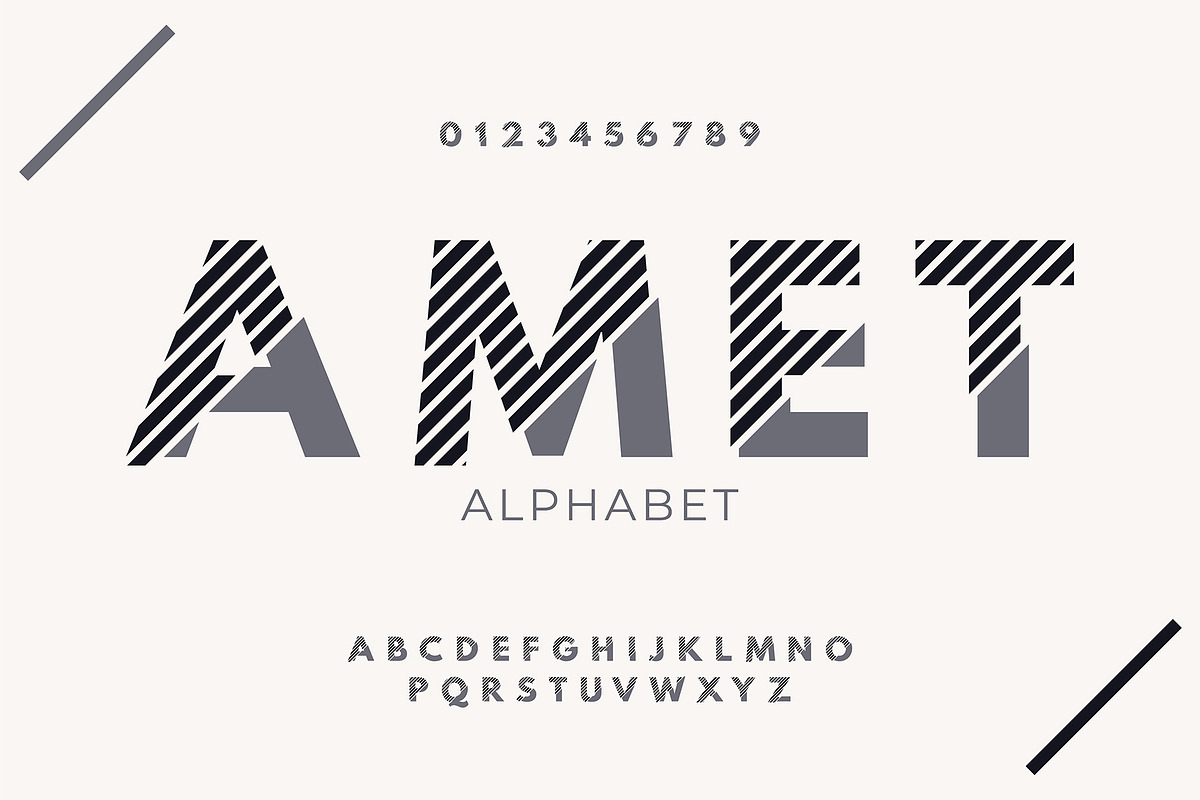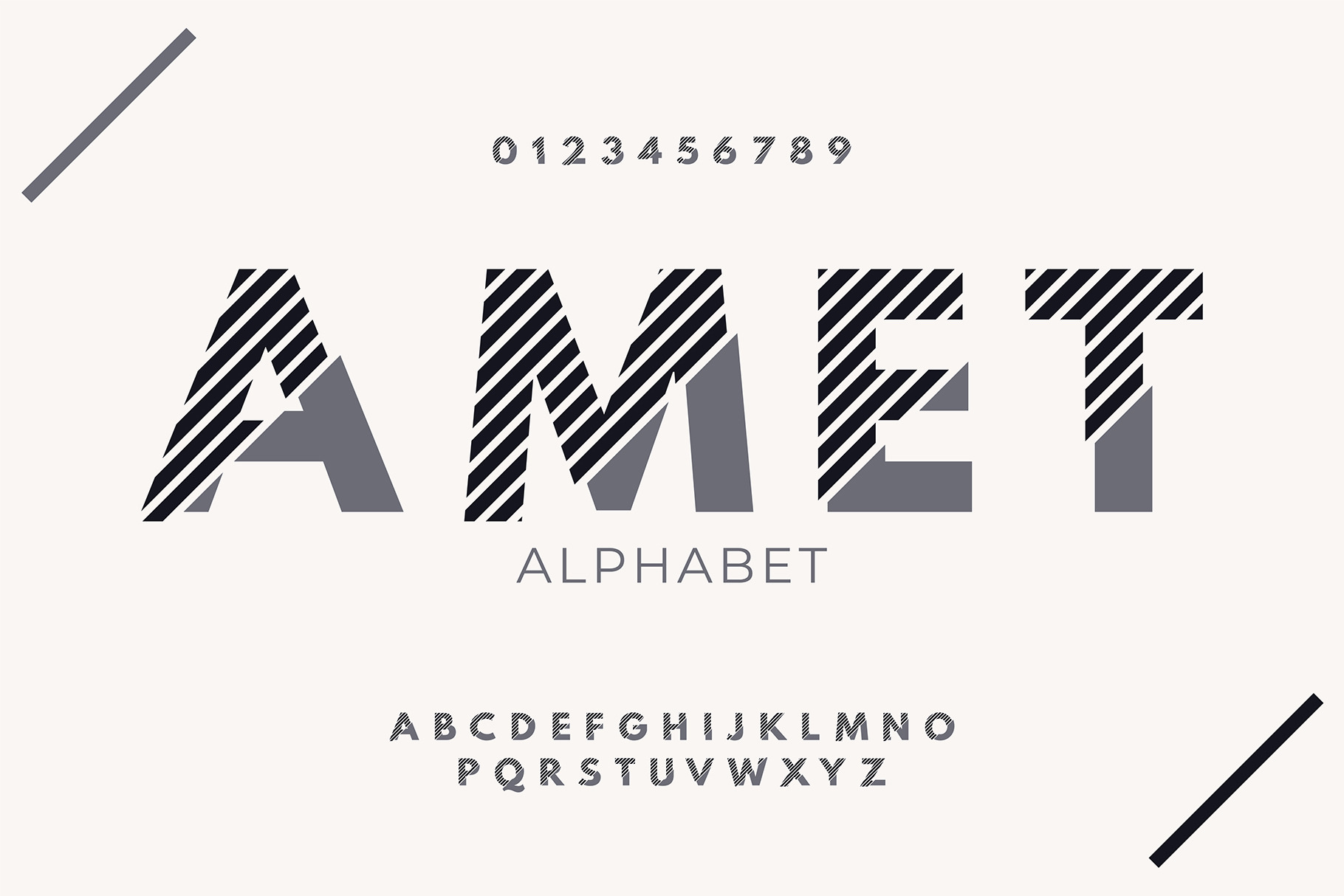
Striped Minimal Font Set
Modern Minimal Uppercase Font with Geometric Stripes and Abstract Line Elements. Stylish Alphabet and Numbers for Branding, Posters, and Digital Design - EPS (Not a Font!)
- Uppercase letters A - Z
- Numbers 0 - 9
- Clean, modern, and unique alphabet design